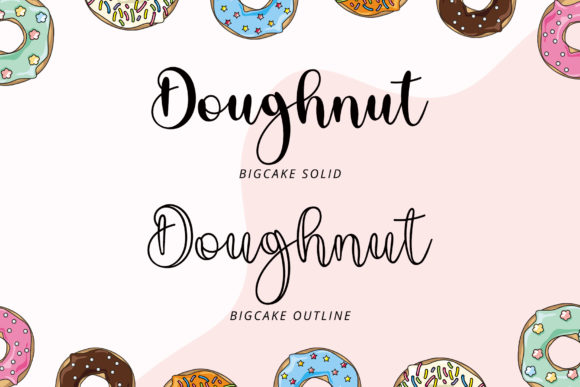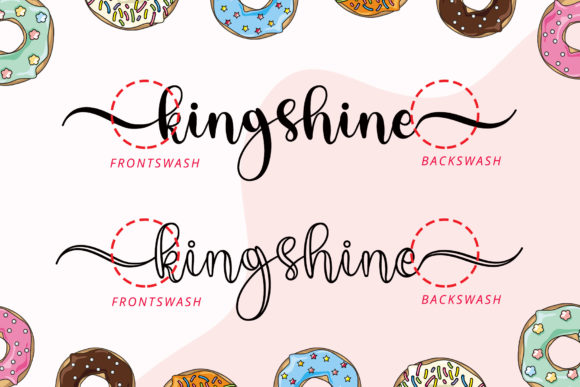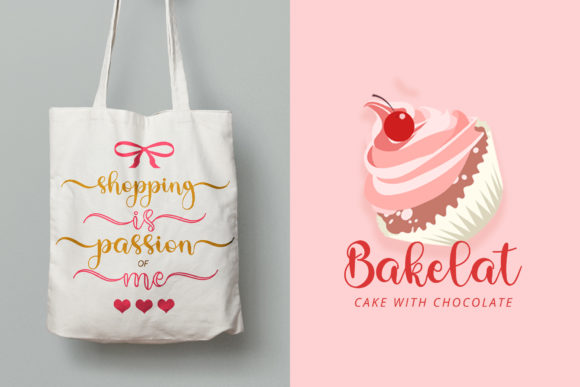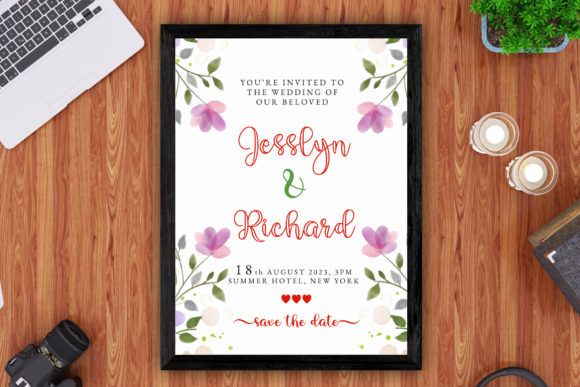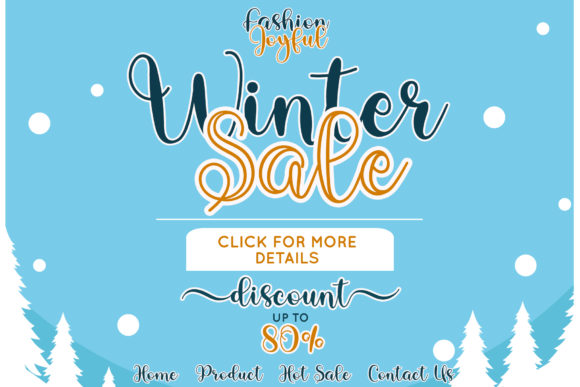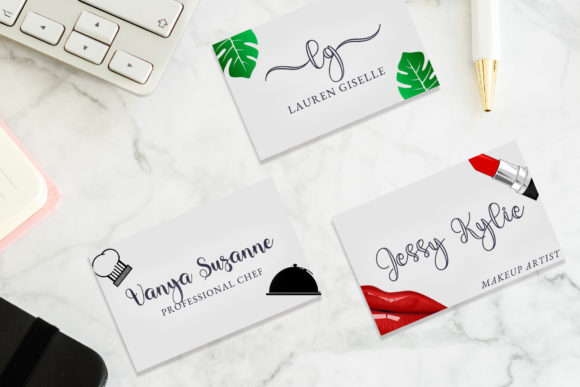
Introducing Bigcake Font: The Sweetest Addition to Your Design Collection
Are you a designer or crafter looking for a unique and elegant font to elevate your creative projects? Look no further than Bigcake Font, a beautiful handwritten font that features sweet and delicate swashes. With its original look and versatile style, Bigcake is perfect for a wide range of crafty ideas, from letterheads and titles to stationery and more.
The Characteristics of Bigcake Font
Bigcake Font is an elegant and dainty handwritten font that boasts a range of characteristics that make it stand out from the crowd. Its sweet and delicate swashes add a touch of sophistication and whimsy, making it perfect for designers and crafters who want to add a personal touch to their work. The font’s handwritten style gives it a warm and inviting feel, making it ideal for projects that require a personal and human touch.
What Makes Bigcake Font So Versatile?
Bigcake Font is incredibly versatile, making it suitable for a wide range of design projects. Its elegant and delicate style makes it perfect for:
- Letterheads and titles: Add a touch of sophistication to your letterheads and titles with Bigcake Font’s elegant and cursive style.
- Stationery: Create beautiful and unique stationery, such as greeting cards, invitations, and thank-you cards, with Bigcake Font’s delicate swashes and handwritten style.
- Crafting projects: Bigcake Font is perfect for crafters who want to add a personal touch to their projects, such as scrapbooking, journaling, and paper crafting.
- Branding and packaging: Use Bigcake Font to create beautiful and eye-catching branding and packaging materials, such as labels, tags, and business cards.
Why Designers and Crafters Love Bigcake Font
Designers and crafters love Bigcake Font for its unique and elegant style, which adds a touch of sophistication and whimsy to any design project. Here are just a few reasons why:
- Unique and original: Bigcake Font is an original and unique font that will set your design projects apart from the crowd.
- Elegant and delicate: The font’s elegant and delicate style makes it perfect for designers and crafters who want to add a touch of sophistication to their work.
- Versatile: Bigcake Font is incredibly versatile, making it suitable for a wide range of design projects.
Bigcake Font is a beautiful and elegant handwritten font that features sweet and delicate swashes. With its original look and versatile style, it’s perfect for a wide range of crafty ideas, from letterheads and titles to stationery and more. Designers and crafters love Bigcake Font for its unique and elegant style, which adds a touch of sophistication and whimsy to any design project. So why not give Bigcake Font a try and see how it can elevate your design projects to the next level?